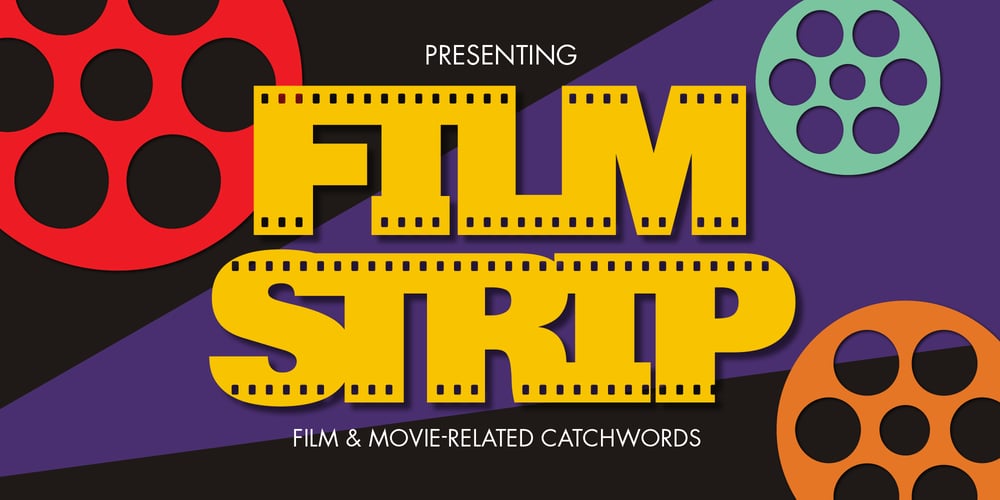
Filmstrip BF Font Family was designed by John Bomparte and published by Bomparte’s Fonts. Filmstrip BF contains 1 styles and family package options. Imagine words and letters, all caps, cut out of 35mm film. Then imagine Filmstrip BF —a font of film and movie-related catchphrases.They’re all ordered in more or less alphabetical order as seen in a glyph palette, beginning with “A”, which is accessible by typing a number (#) symbol. Numerals zero through nine, however, are mapped to their usual keyboard locations. For a better fit between numbers, be sure to enable the Ligature feature in an OpenType-capable application.All catchwords contained in this font are listed as shown, across the three posters in the slide carousel above. For future reference, you might select and copy all of the glyphs indicated below, paste into your application document, then convert them to Filmstrip BF. This would display all content.#$%&’()*+,./0123456789:;=>?@ABCDEFHIJKLNOPQRSTUVWXYZ[]^_`abdefghijklmnopqrstuvwxyz{|}~ÄÅÇÉÑÖÜáàâäãåçéèêëíìîïñóòôöõúùûü†°¢£§•ß®©™´¨≠ÆØ∞±≤≥¥∂∑∏πªºæø¿¡¬√≈«»…ÀÃÕŒœ–—“”‘’÷ÿŸ⁄€‹›fifl‡·‚„‰ÂÊÁËÈÍÎÏÌÓÔÒÚÛÙıˆ˜¯˘˙˚¸˝˛ˇÐðŁ¹¼łŠš³¾²When used in a creative way, Filmstrip BF can be successfully incorporated into a variety of projects such as product packaging, logos, posters, signage, headlines and more.